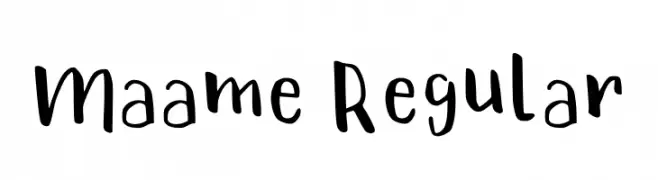
A playful and whimsical script font with a handwritten style.
A bold, expressive handwritten font with a playful and casual style.
Playful handwritten font with a casual style.